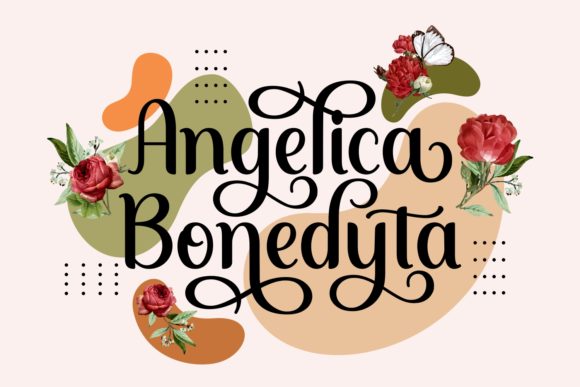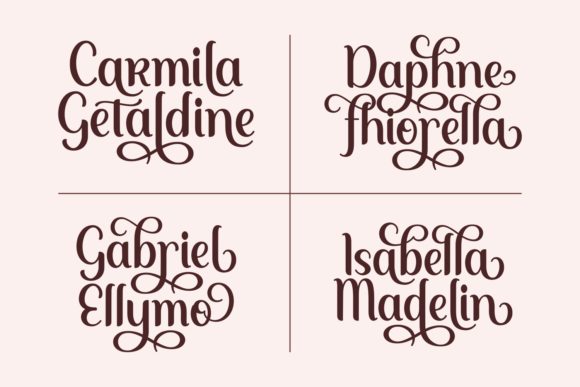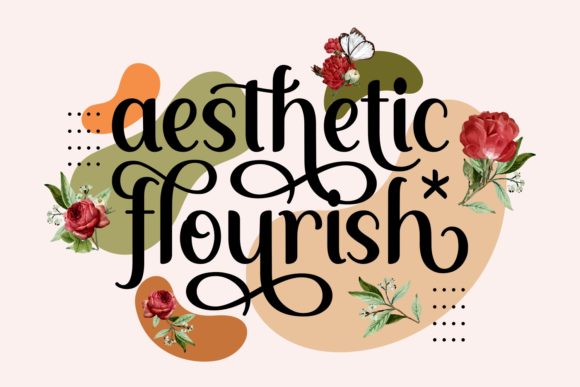
Seyko Font
About Seyko Font
Seyko is a stunning and enchanting handwritten font that captivates with its magical and balanced style. With its unique design, Seyko adds a touch of charm and beauty to various projects. Here are some ways you can use Seyko to create captivating designs:
1. Fantasy-Themed Designs: Seyko’s magical vibe makes it a perfect choice for fantasy-themed projects, such as book covers, movie posters, or game logos, adding a whimsical and otherworldly feel.
2. Greeting Cards: Create beautiful and heartfelt greeting cards for special occasions like birthdays, weddings, and holidays, infused with Seyko’s enchanting charm.
3. Social Media Graphics: Use Seyko to design eye-catching and engaging social media posts, quotes, and promotions, capturing the attention of your audience.
4. Wedding Invitations: Seyko’s balance and beauty make it an excellent choice for designing elegant and romantic wedding invitations that leave a lasting impression.
5. Artistic Prints: Apply Seyko to create art prints and typography art with a magical touch, perfect for home decor or gifting.
6. Storybook Illustrations: Use Seyko for children’s book illustrations, fairy tales, or any other projects that require a touch of magic and wonder.
7. Stationery and Packaging: Incorporate Seyko into stationery designs, business cards, and packaging to add an enchanting and personalized touch.
8. Logo and Branding: Utilize Seyko for brands seeking a touch of enchantment, such as magical-themed businesses or products.
9. Editorial Designs: Apply Seyko to editorial layouts, magazine titles, or article headers to create a captivating and alluring visual experience.
10. Inspirational Quotes: Use Seyko to design inspirational quote graphics that evoke a sense of wonder and magic, inspiring your audience.
In conclusion, Seyko is a beautiful and magical handwritten font that can add a touch of enchantment and allure to your design projects. Its balanced and varied style makes it suitable for a wide range of creative ideas, from fantasy-themed designs to greeting cards and social media graphics. Embrace the magic of Seyko in your creations and watch them come to life with a touch of wonder and beauty.